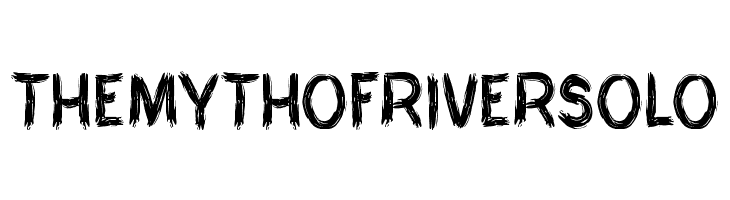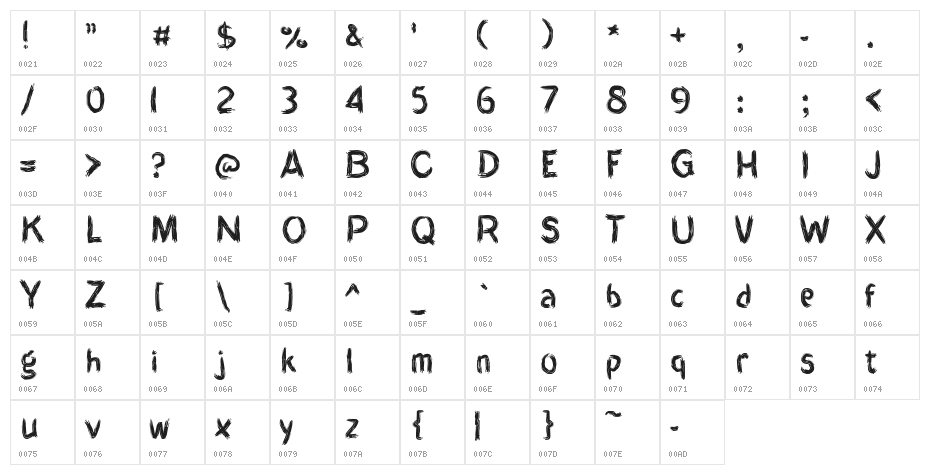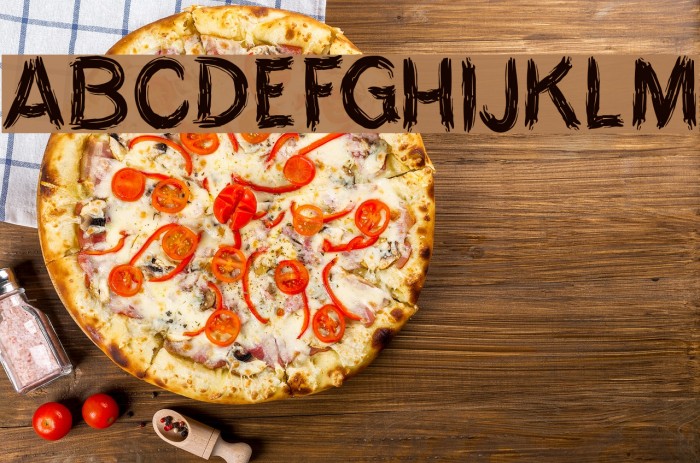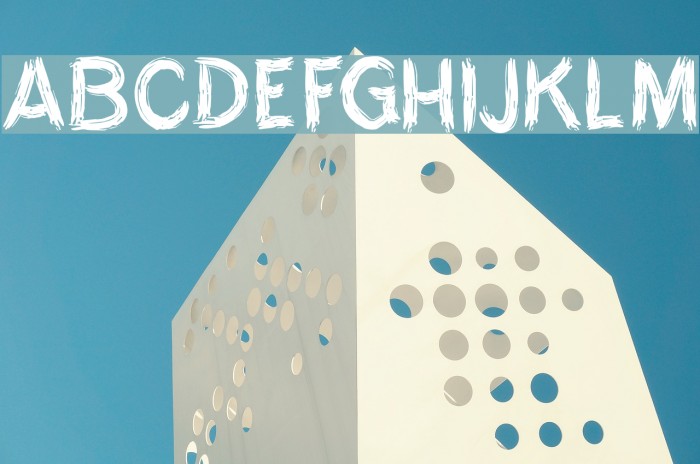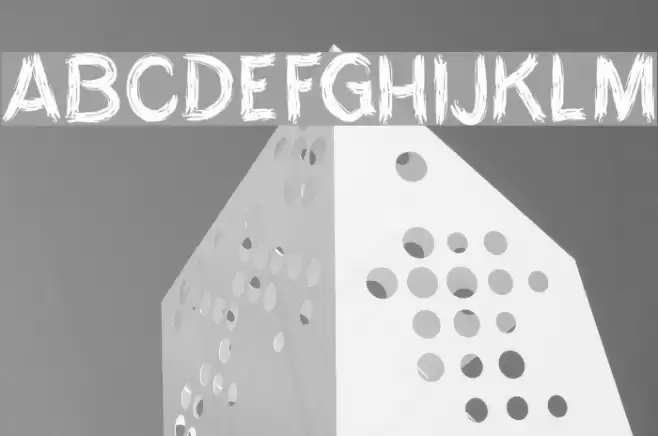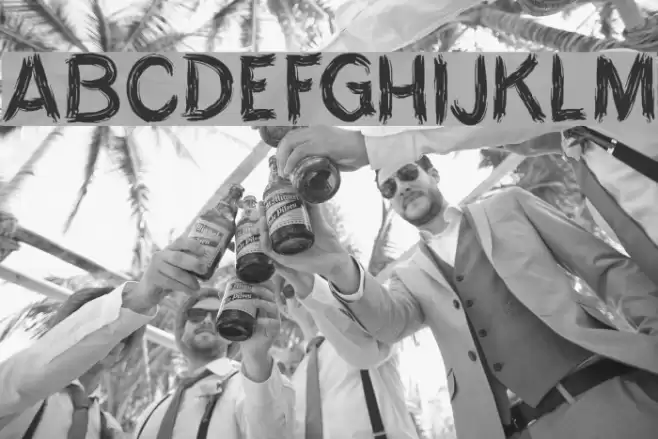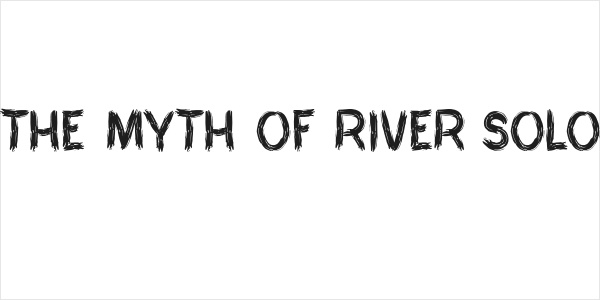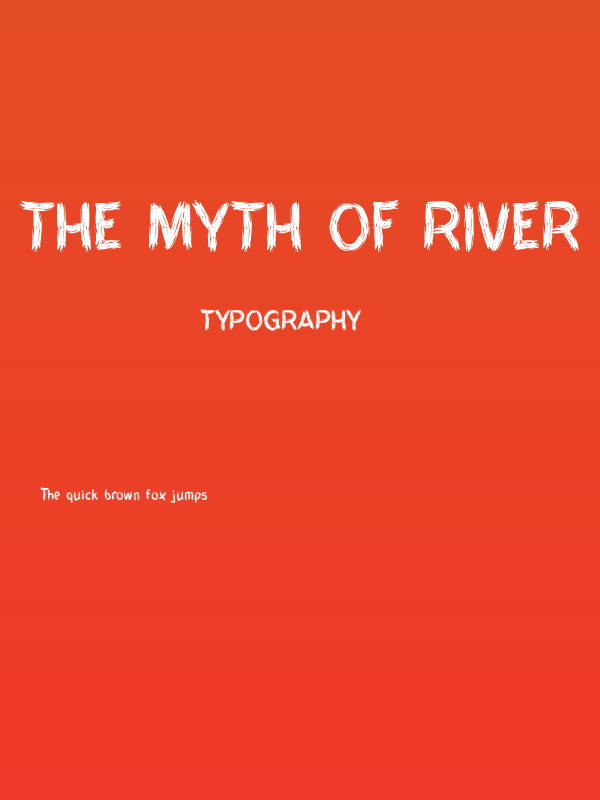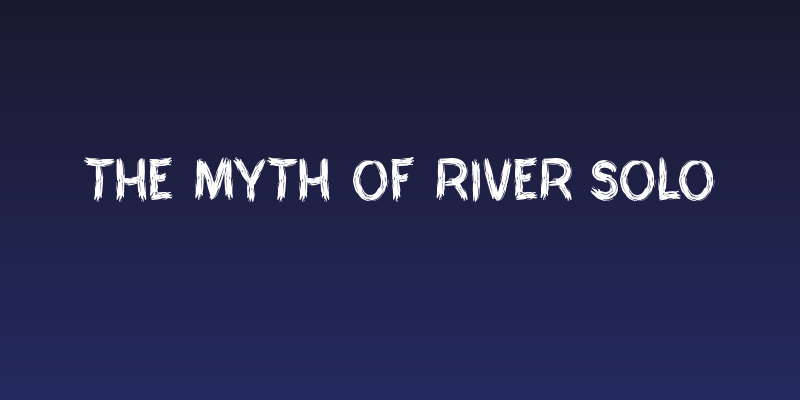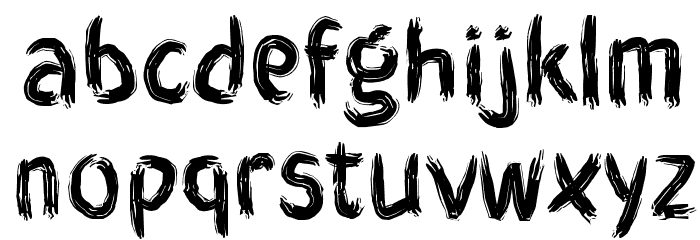
THE MYTH OF RIVER SOLO Font
THE MYTH OF RIVER SOLO Description
This font features a bold, brush-stroke style that exudes a raw, artistic energy. Each character appears as if it has been hand-painted with a thick brush, creating a dynamic and textured appearance. The strokes are uneven and rugged, giving the font a sense of movement and spontaneity. The uppercase and lowercase letters maintain a consistent style, with rounded edges and varying stroke widths that add to the organic feel. Numbers and special characters follow the same aesthetic, ensuring a cohesive look across all text elements. This font is ideal for projects that require a bold, artistic touch, such as posters, album covers, or creative branding.
| Overall Style | Artistic, Dynamic |
| Use Case | Headlines, Logos, Artistic projects |
| Proposed Projects | Ideal for posters, album covers, creative branding, and artistic projects. |